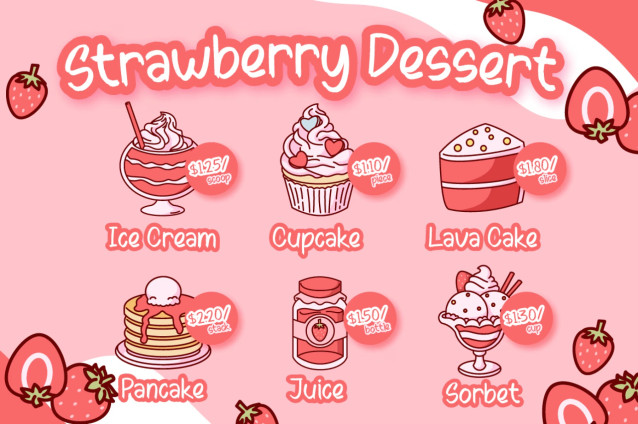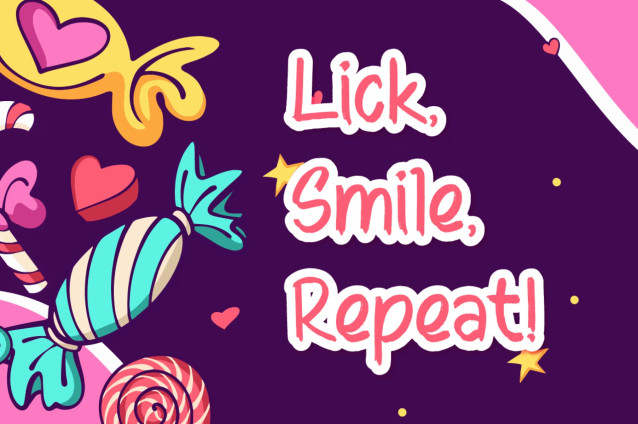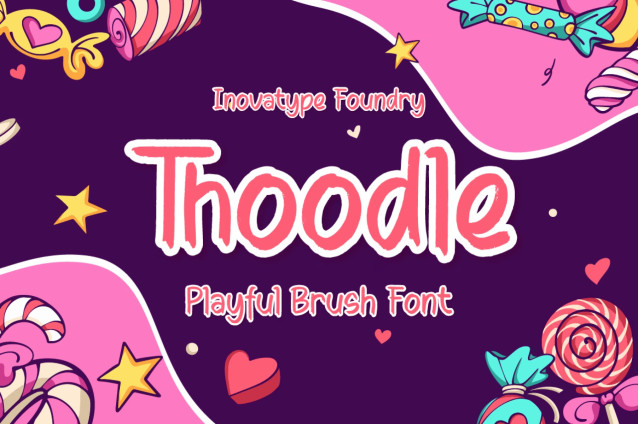
Thoodle Playful Font
Thoodle Playful Font – a cheerful handwritten font full of personality! With its playful and quirky style, Thoodle is perfect for kids-themed designs, packaging, branding, greeting cards, quote posts, and anything that needs a fun, light-hearted touch.